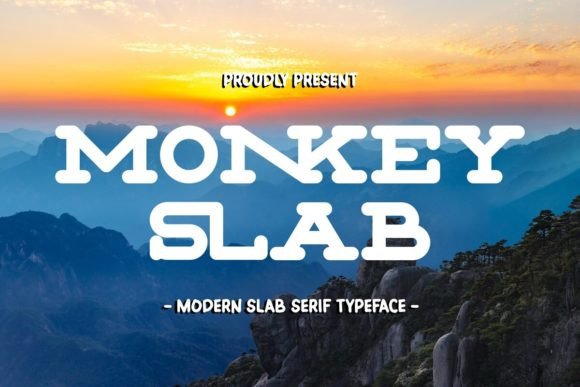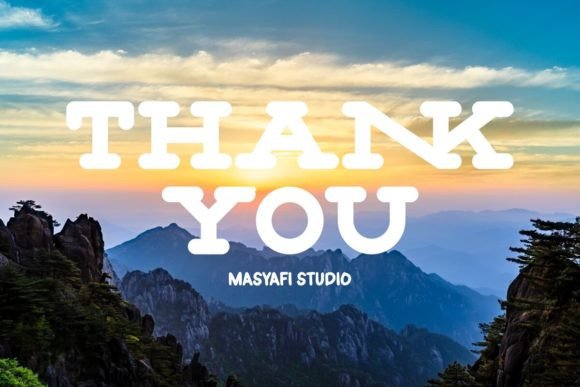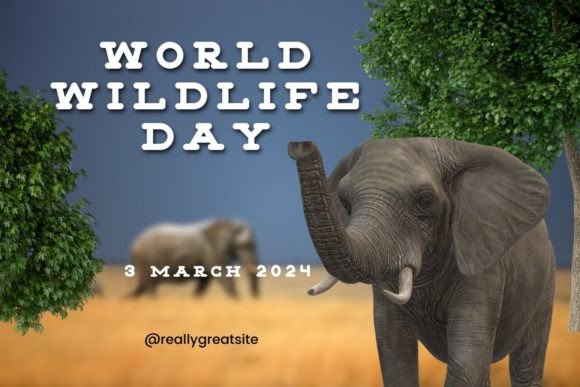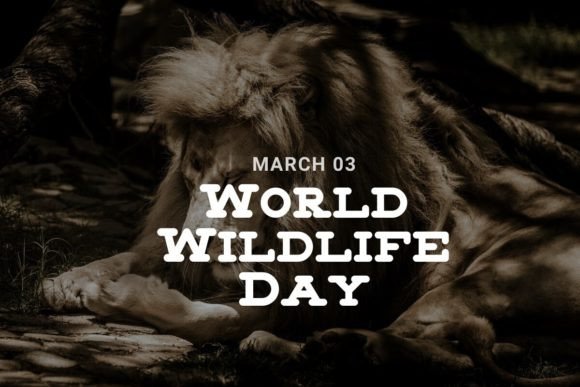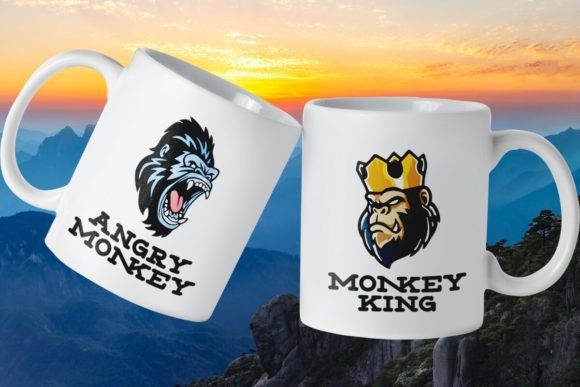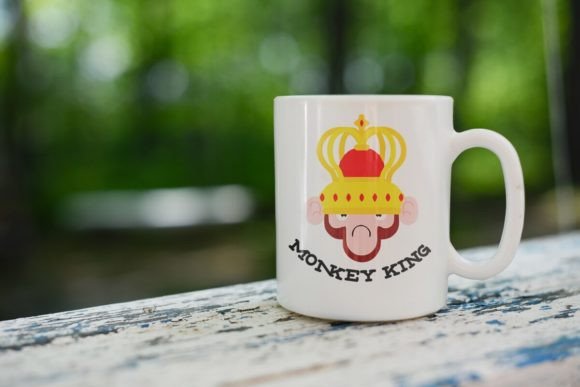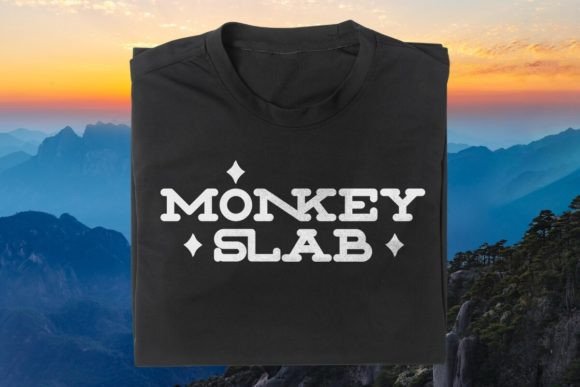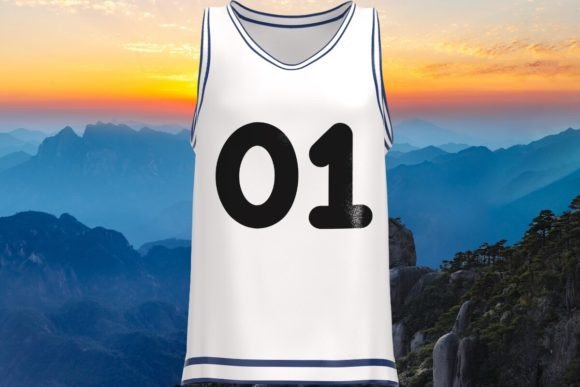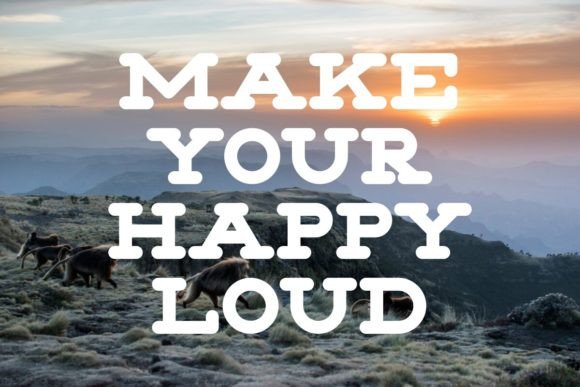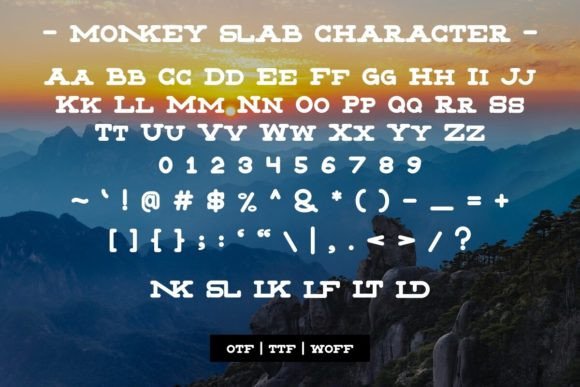
Monkey Slab Font
About Monkey Slab Font
Introducing Monkey Slab – Modern Slab Serif Typeface
A Modern Slab Serif Typeface font with a manly style, this font is cool for letters, mugs, t-shirts, headlines, overlays, etc.